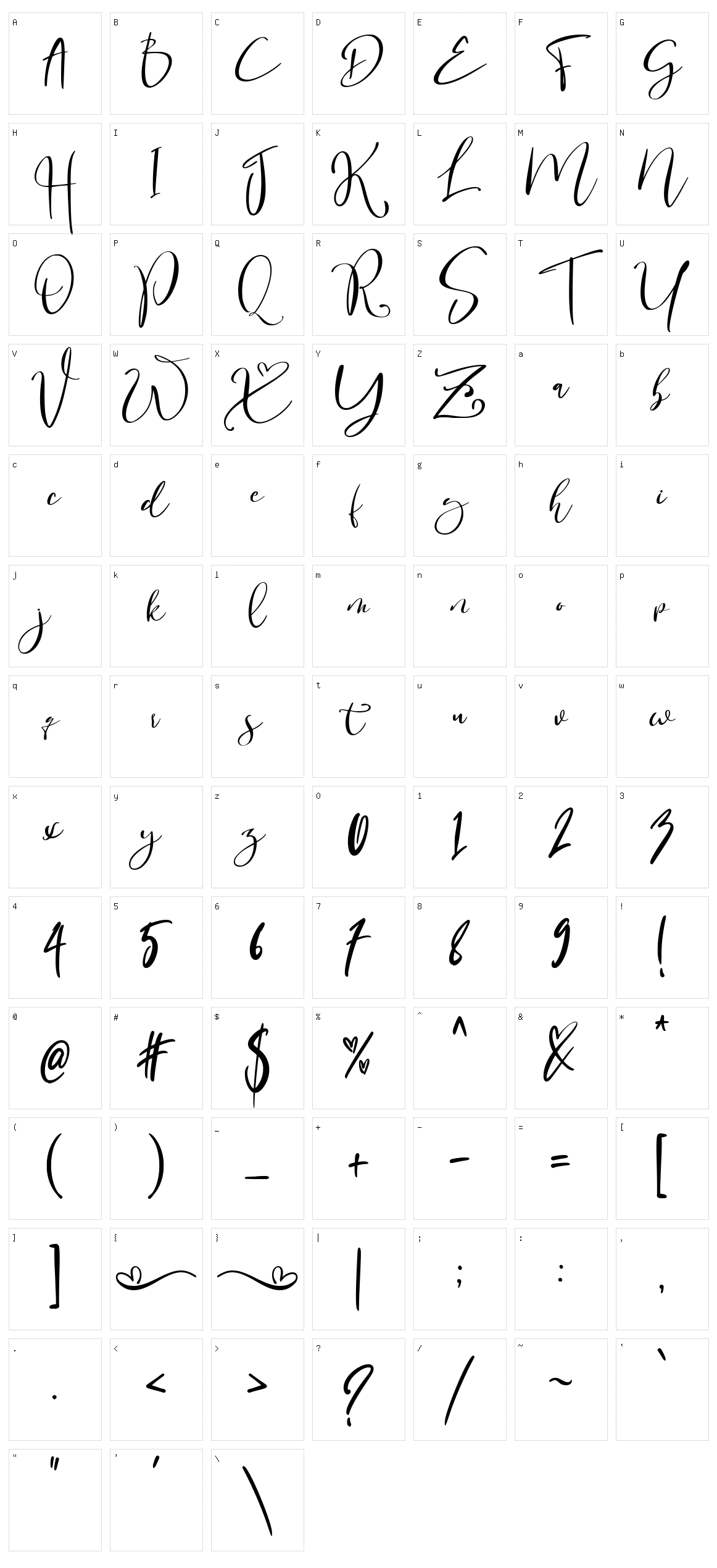
The free font Romance Privilege is carefully designed by Noftanti Studio, showcasing a thoughtful balance of creativity and usability and falls under the Script font style. When you download the ZIP file, it contains only 104.27 KB of font files, making it lightweight and quick to download. Please review the license details below to understand permitted usage and distribution rights. If license information is not available, we recommend using this font for personal projects only or contacting the author directly for commercial usage permissions.